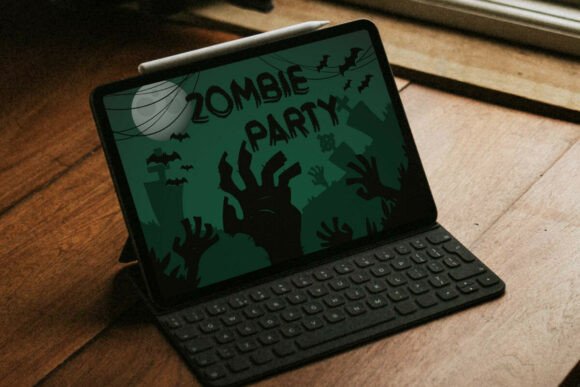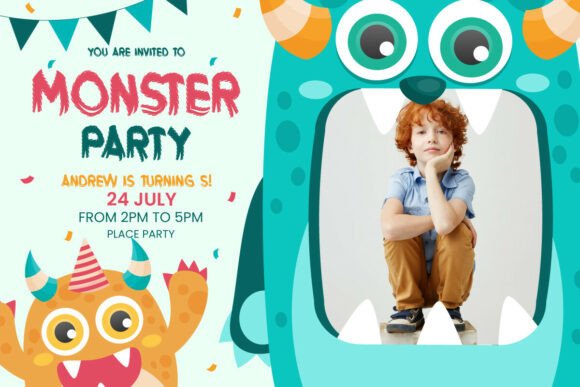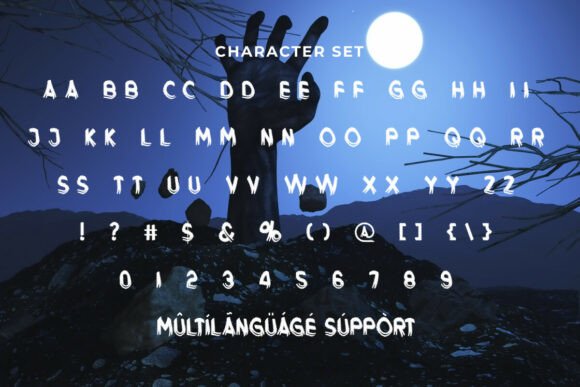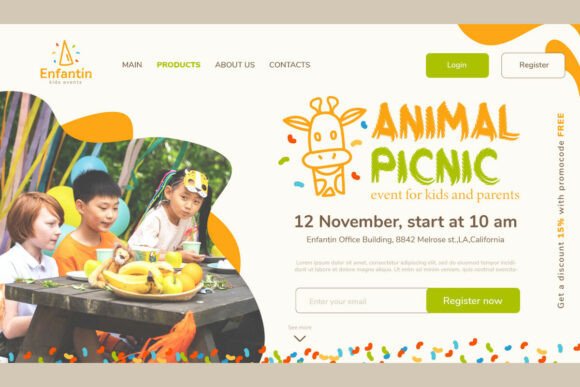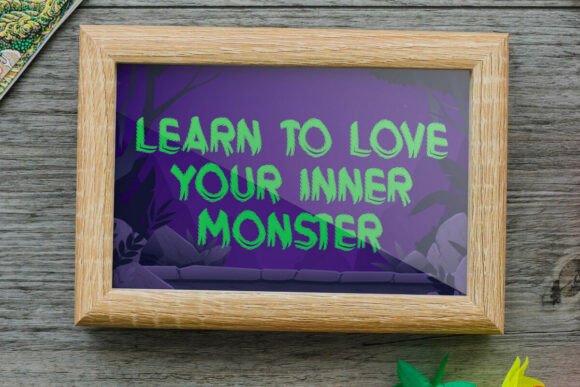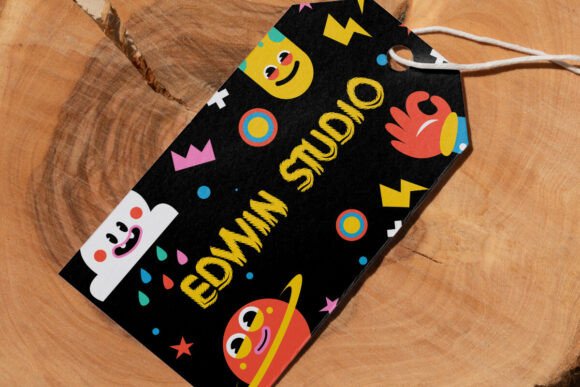
Introduction to Monster Birthday Font Font
Fonts play a crucial role in design, and the Monster Birthday Font font is a typeface that brings both character and versatility to any project. Whether you’re working on a branding project, a website, or a print design, the Monster Birthday Font font offers a unique style that can elevate your work.
Monster Birthday is a wildly aggressive and textured display font that captures the look of jagged, monster-like handwriting or rough brush strokes, making it perfectly suited for titles that need a dark, energetic, and slightly spooky vibe.
This intimidating Monster Birthday typeface features extremely rough, uneven outlines and a hand-painted texture that gives it a raw, visceral feel The letterforms are bold and impactful, ensuring maximum visibility for horror or themed projects.
Key Features of Monster Birthday Font Font
Why Choose Monster Birthday Font Font?
The Monster Birthday Font font is more than just a typeface – it’s a design tool that helps you communicate your message with style and clarity. Its unique character set and versatile design make it suitable for a wide range of applications, from elegant invitations to bold headlines.
With its carefully crafted letterforms and balanced proportions, the Monster Birthday Font font ensures readability and visual appeal across all mediums.
What makes Monster Birthday Font font special?
The Monster Birthday Font font stands out with its unique design, exceptional readability, and versatility across various design applications.